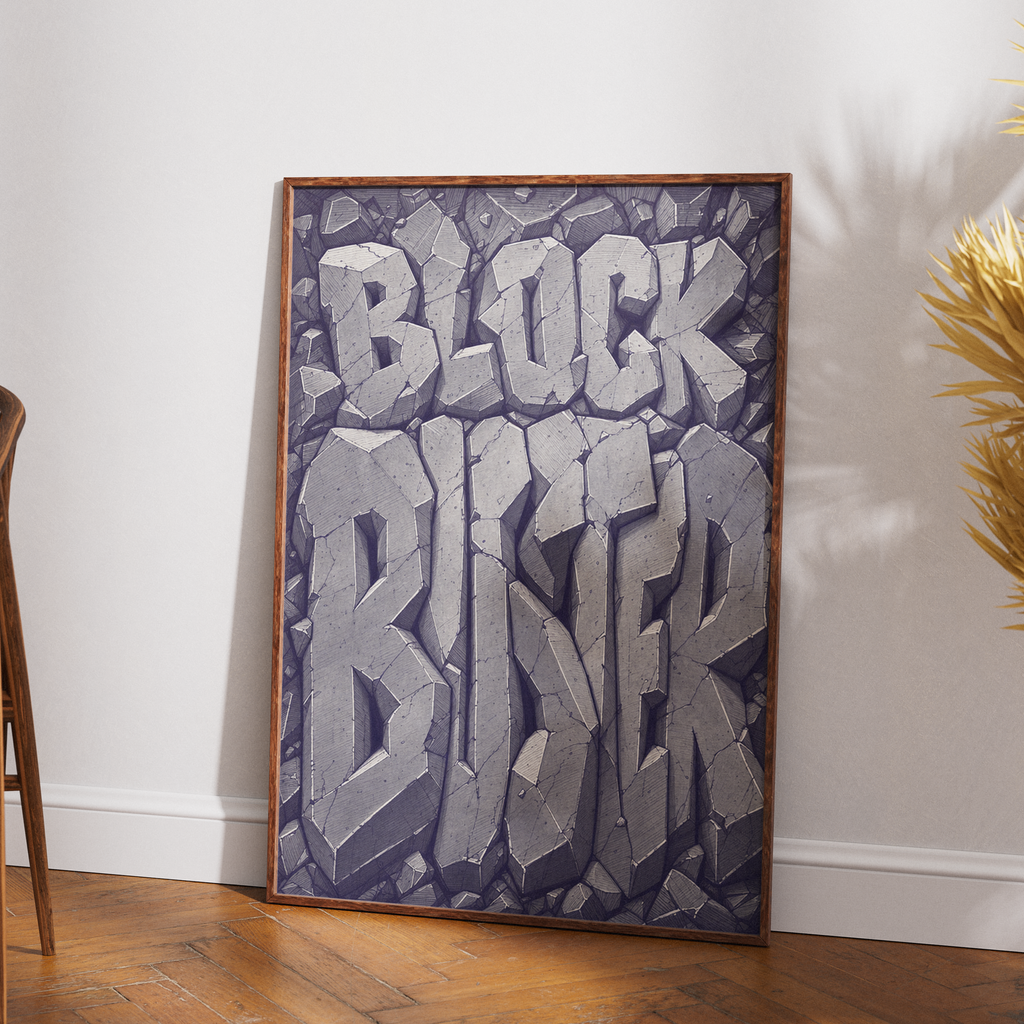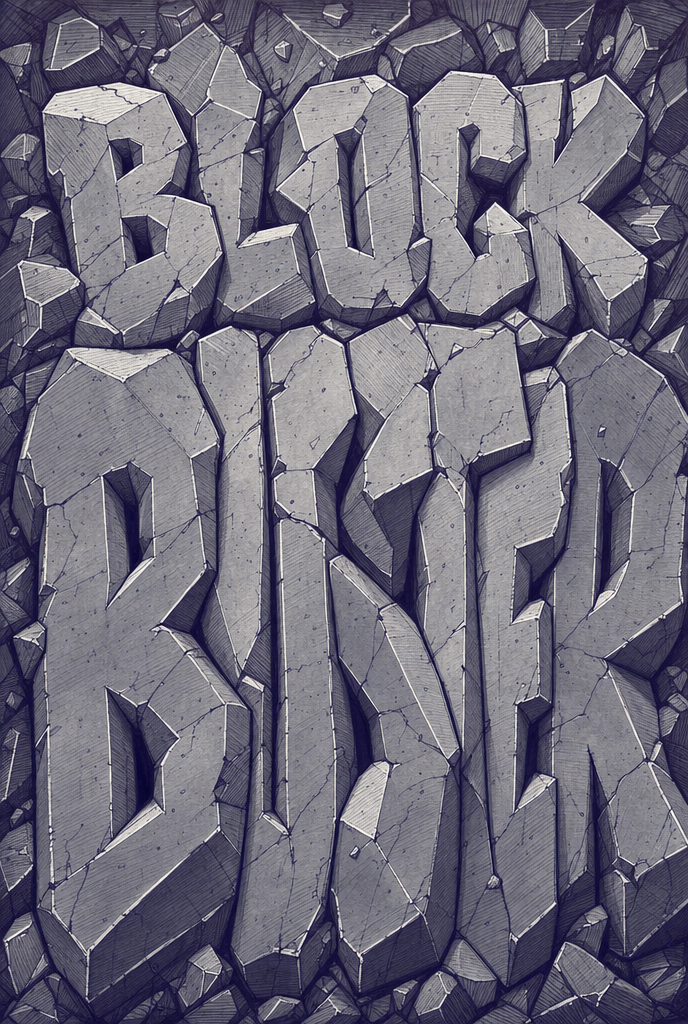
BLOCK BUSTER
Premium 61 x 91 cm poster featuring bold, chiseled "BLOCK BUSTER" lettering carved from fractured stone against a textured rocky background. Strong 3D depth, fine etched details, and a monochrome, high-contrast palette give this piece a dramatic, cinematic look—perfect for home theaters, game rooms, or industrial-style interiors.